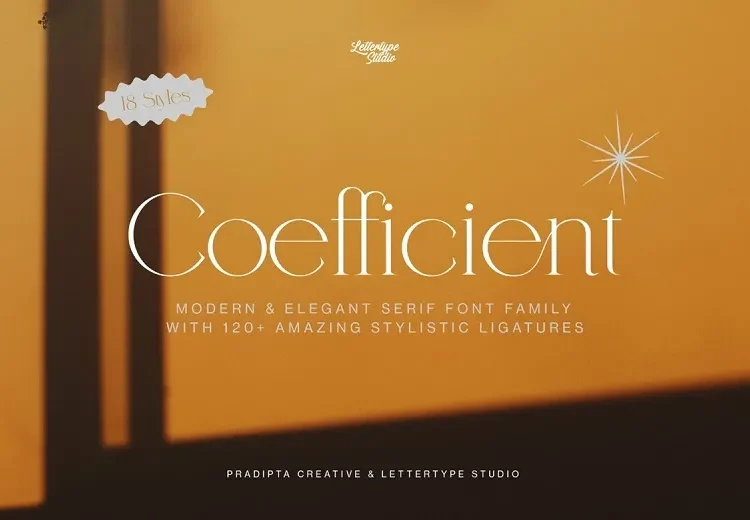
Coefficient Font
Coefficient is a contemporary serif font that draws inspiration from the refined typography of the 18th century. Its elegant design is ideal for advanced branding, editorial layouts, and web typography, offering versatility across a wide range of applications. The font exudes a classic charm, characterized by clean lines, geometric precision, and luxurious detailing, making it perfect for projects that demand a sophisticated and polished appearance.
The Coefficient font stands out not just for its historical influence but also for its adaptability in modern design contexts. It brings a timeless elegance to your creative work, whether used in print or digital media. This font is particularly well-suited for designers who seek a balance between variety and refinement in their typographic choices. With Coefficient, every project can achieve a level of sophistication that is both visually striking and deeply rooted in classical design principles.